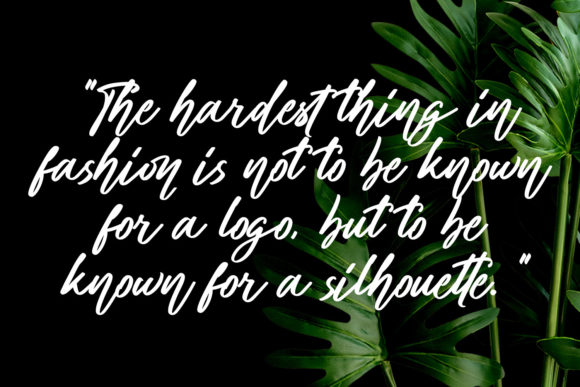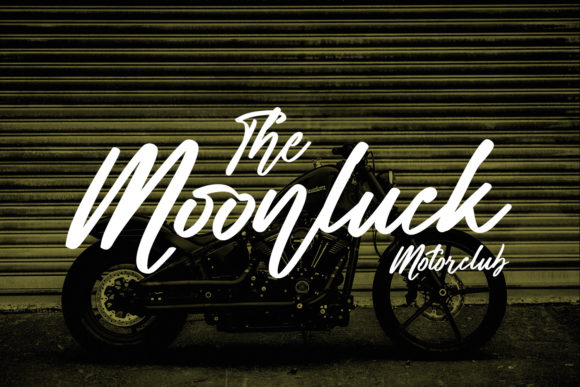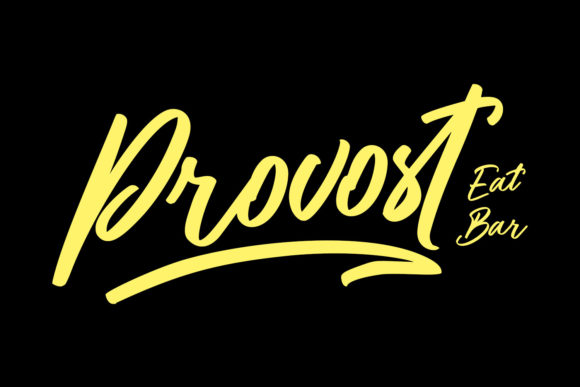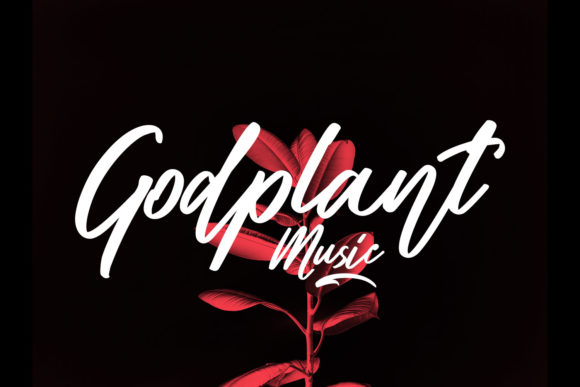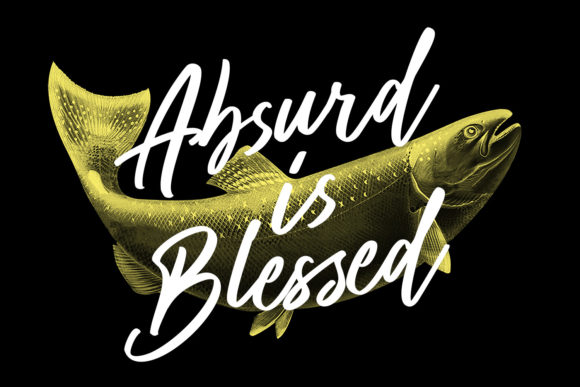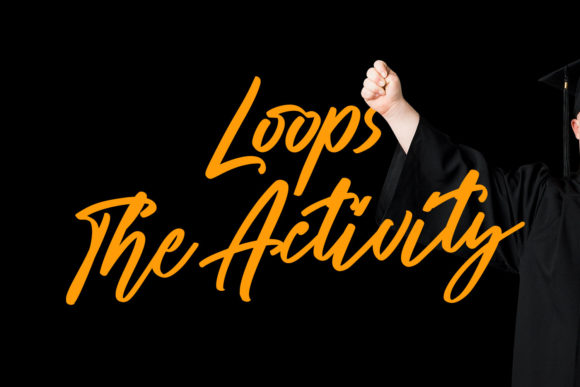
Ginloops Font: Elevate Your Designs with Elegance and Class
In the world of typography, fonts play a crucial role in conveying the tone and personality of a design. For designers and crafters seeking a beautiful and refreshing look, Ginloops Font is an excellent choice. This lovely and casual script font exudes elegance and class, making it perfect for a wide range of design projects.
The Story Behind Ginloops Font
Ginloops Font was particularly crafted for those who need a beautiful and refreshing look to their designs. The font’s creators aimed to create a typeface that would add a touch of sophistication and elegance to any design project. With its unique and flowing script style, Ginloops Font is sure to capture the attention of your audience and leave a lasting impression.
Key Features of Ginloops Font
Ginloops Font boasts several key features that make it an excellent choice for designers and crafters. Some of its notable features include:
- Elegant and Classy Design: Ginloops Font features a beautiful and elegant script style that adds a touch of sophistication to any design project.
- Casual and Friendly Feel: Despite its elegance, Ginloops Font has a casual and friendly feel that makes it perfect for a wide range of design projects, from wedding invitations to social media graphics.
- High-Quality Design: Ginloops Font is designed with high-quality craftsmanship in mind, ensuring that it looks great in any size or resolution.
- Easy to Read: The font’s clear and flowing script style makes it easy to read, even at smaller sizes.
Uses of Ginloops Font
Ginloops Font is a versatile typeface that can be used in a wide range of design projects, including:
- Wedding Invitations and Stationery: Add a touch of elegance and sophistication to your wedding invitations and stationery with Ginloops Font.
- Social Media Graphics: Use Ginloops Font to create eye-catching social media graphics that will capture the attention of your audience.
- Logos and Branding: Ginloops Font is perfect for logos and branding projects that require a touch of elegance and sophistication.
- Signage and Displays: Use Ginloops Font to create eye-catching signage and displays that will grab the attention of your audience.
Tips for Using Ginloops Font
To get the most out of Ginloops Font, here are some tips to keep in mind:
- Pair with Other Fonts: Ginloops Font pairs well with other fonts, so don’t be afraid to experiment with different combinations.
- Use in Moderation: While Ginloops Font is a beautiful typeface, it’s best used in moderation. Use it sparingly to add emphasis and elegance to your design.
- Experiment with Colors: Ginloops Font looks great in a variety of colors, so don’t be afraid to experiment with different color schemes.
In conclusion, Ginloops Font is a lovely and casual script font that exudes elegance and class. With its unique and flowing script style, Ginloops Font is perfect for designers and crafters seeking a beautiful and refreshing look for their designs. Whether you’re working on a wedding invitation, social media graphic, or logo design, Ginloops Font is an excellent choice. So why not give it a try and see how it can elevate your designs?